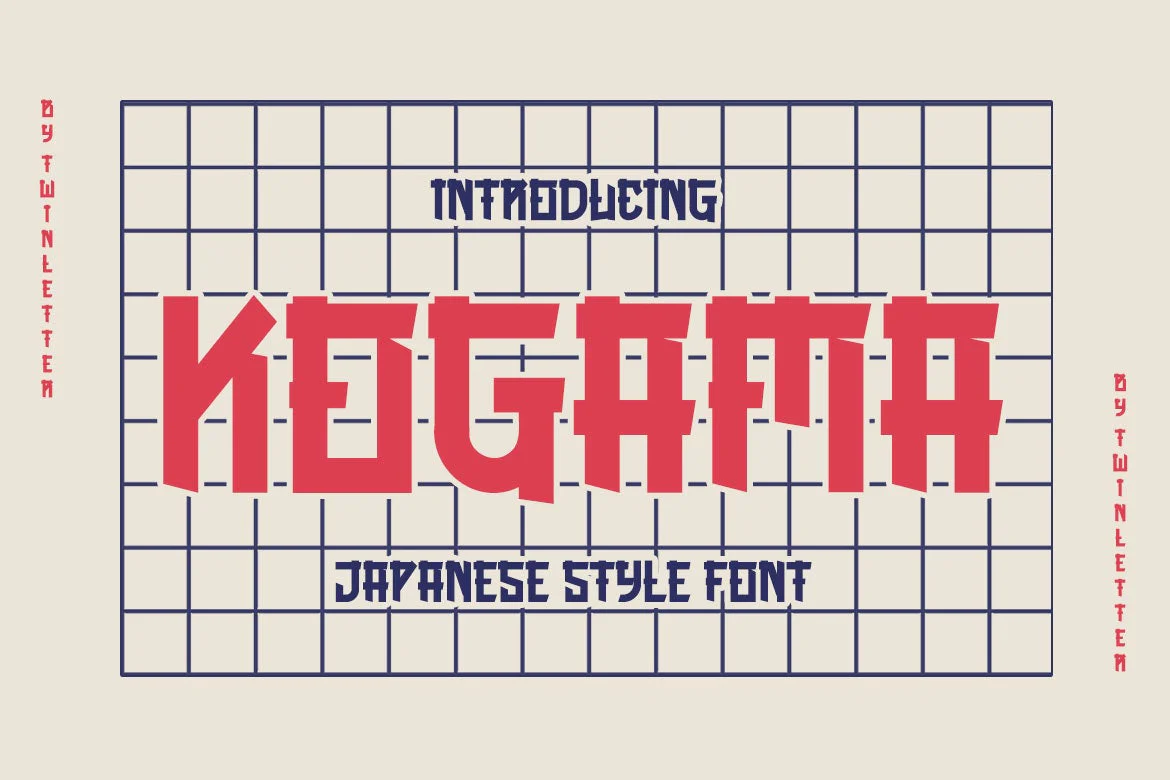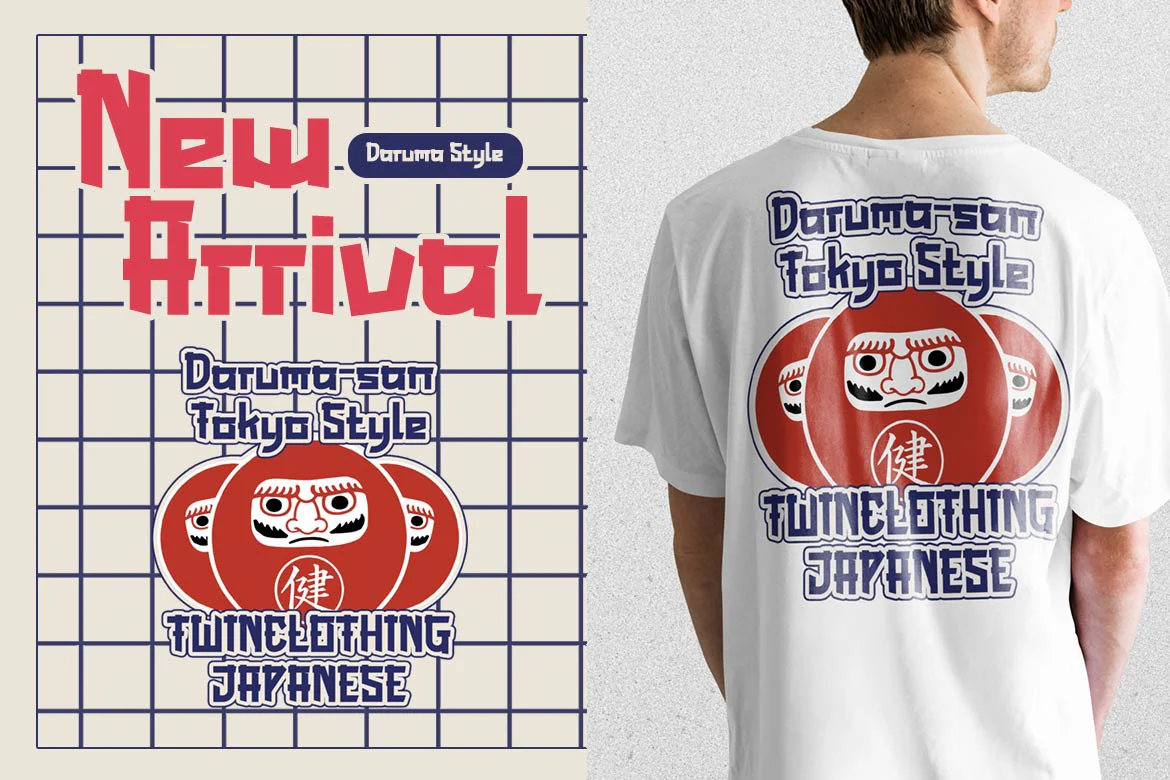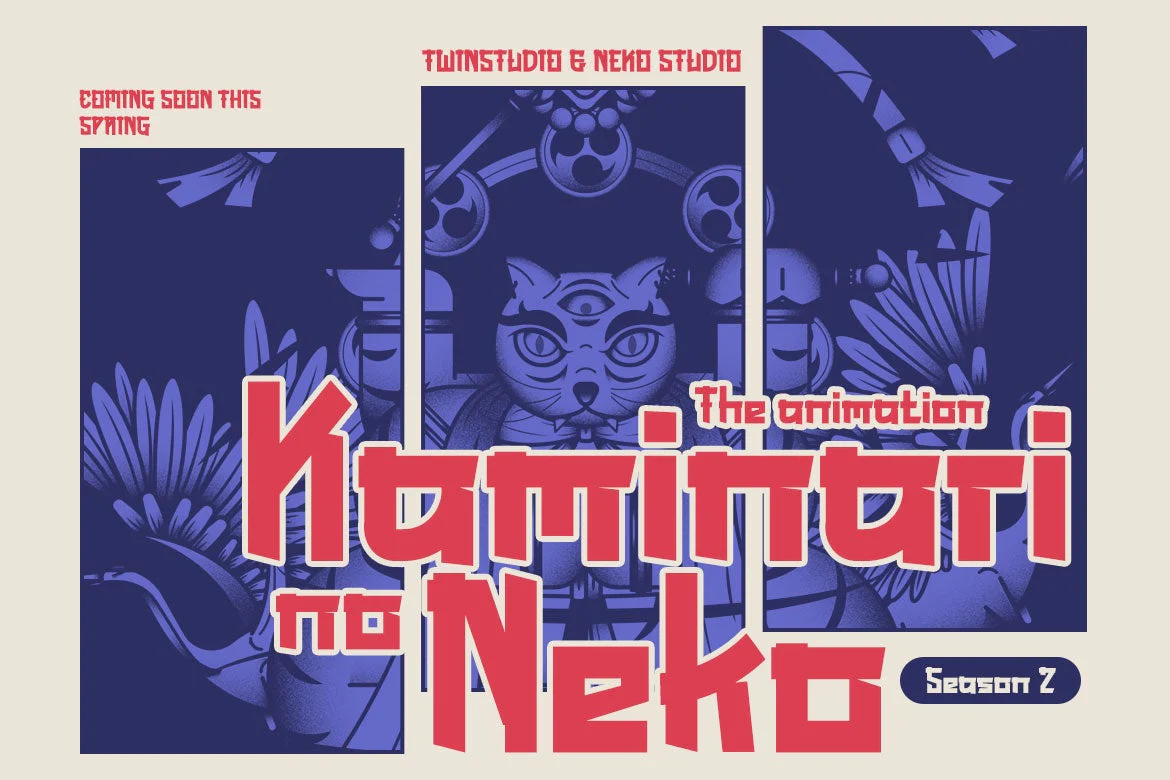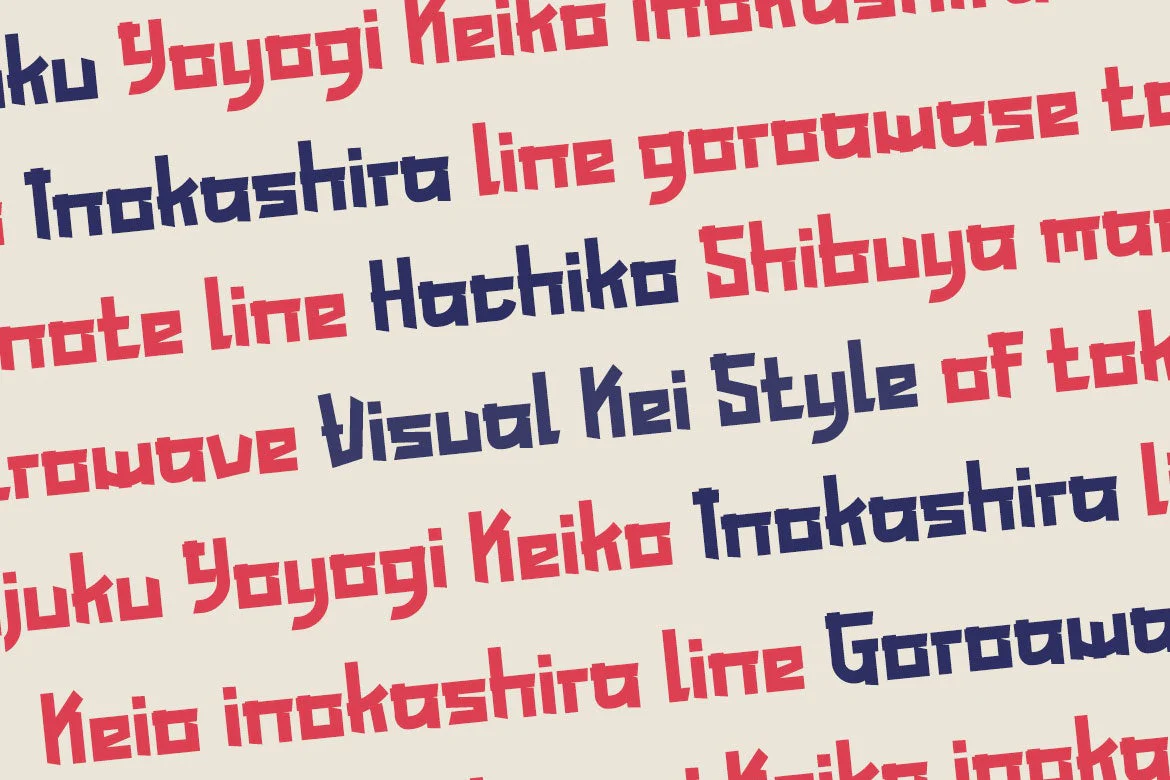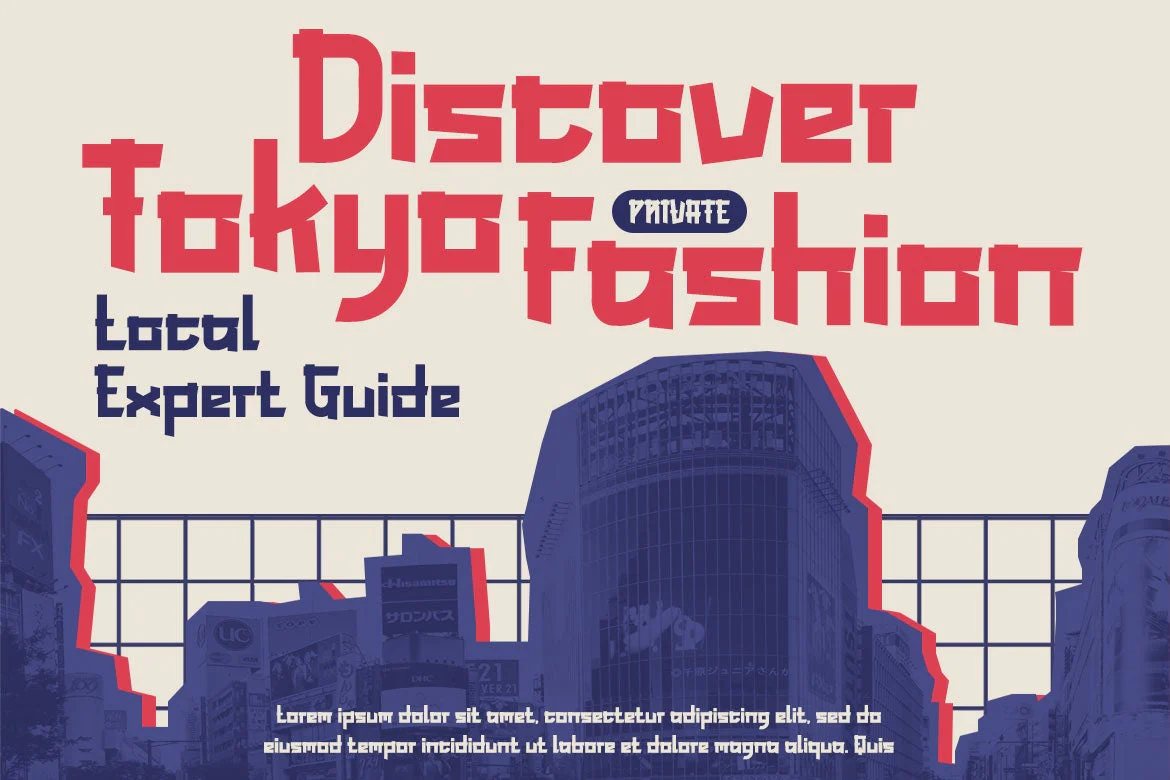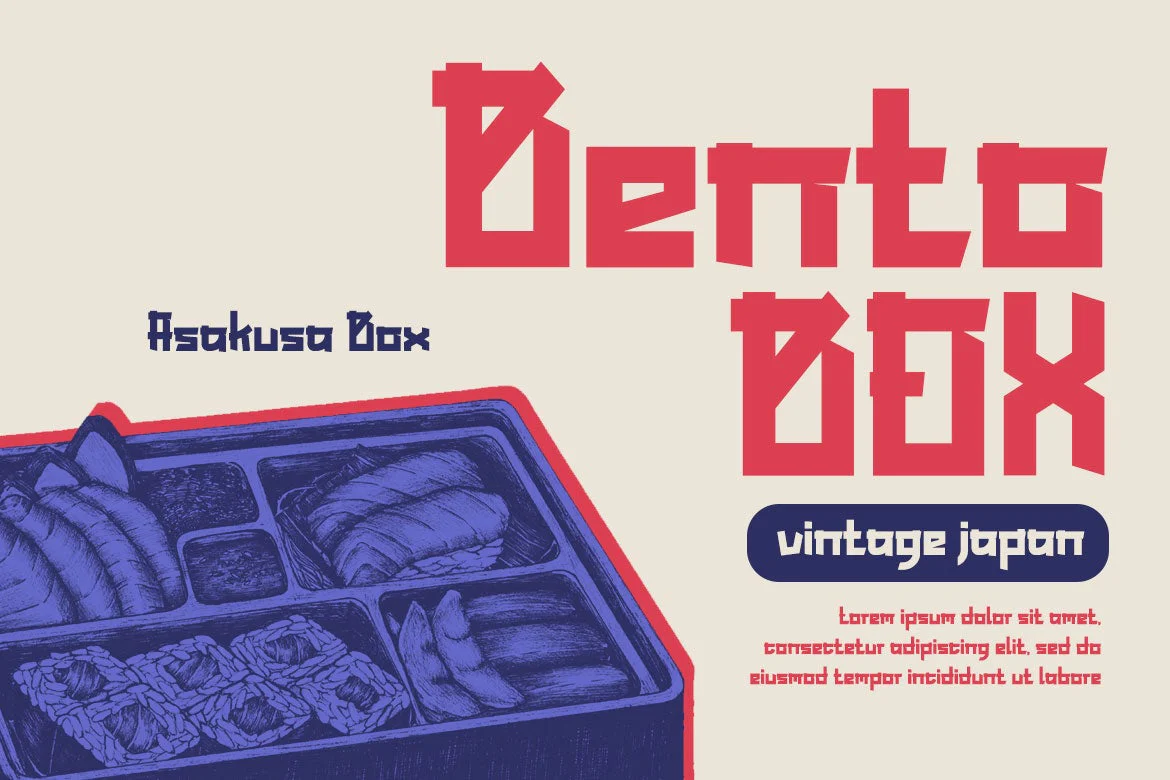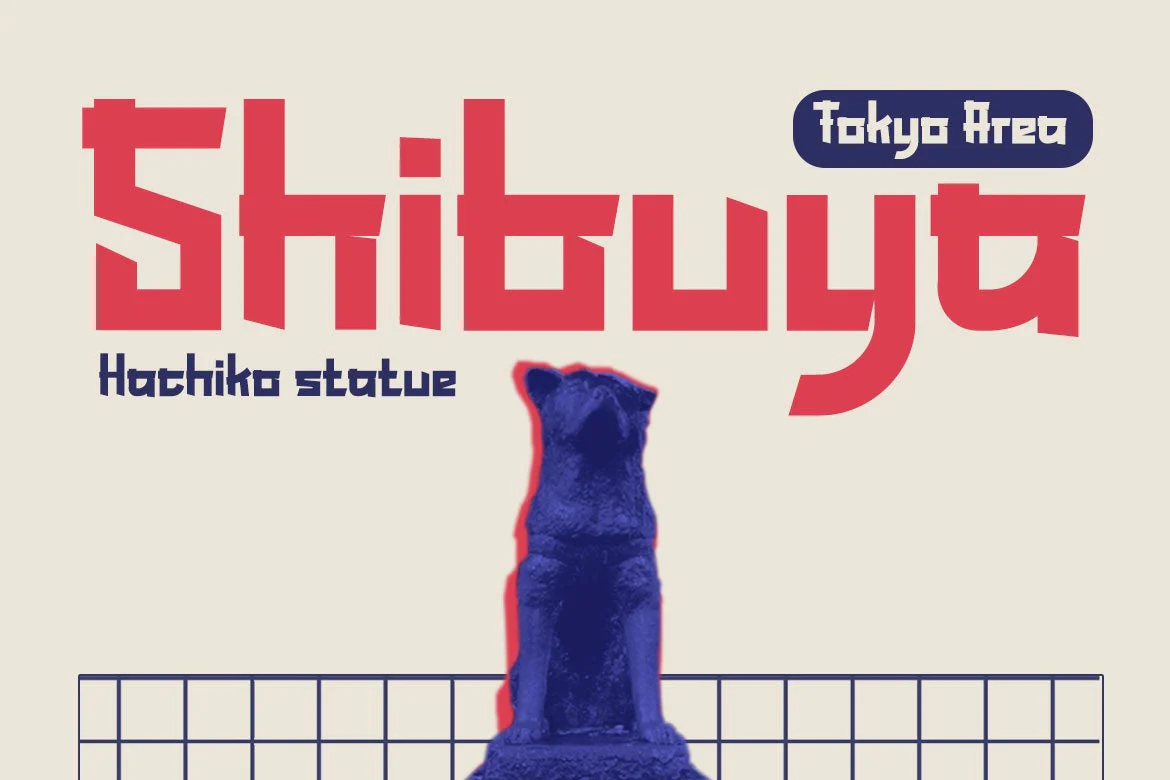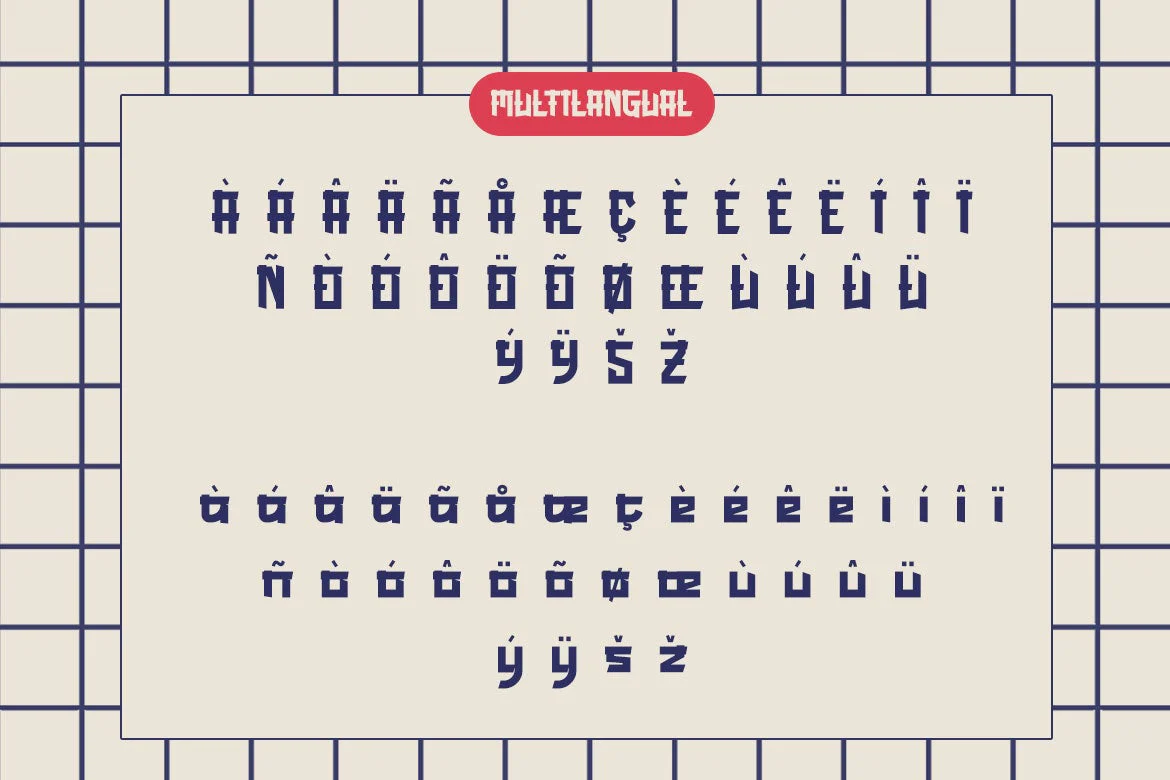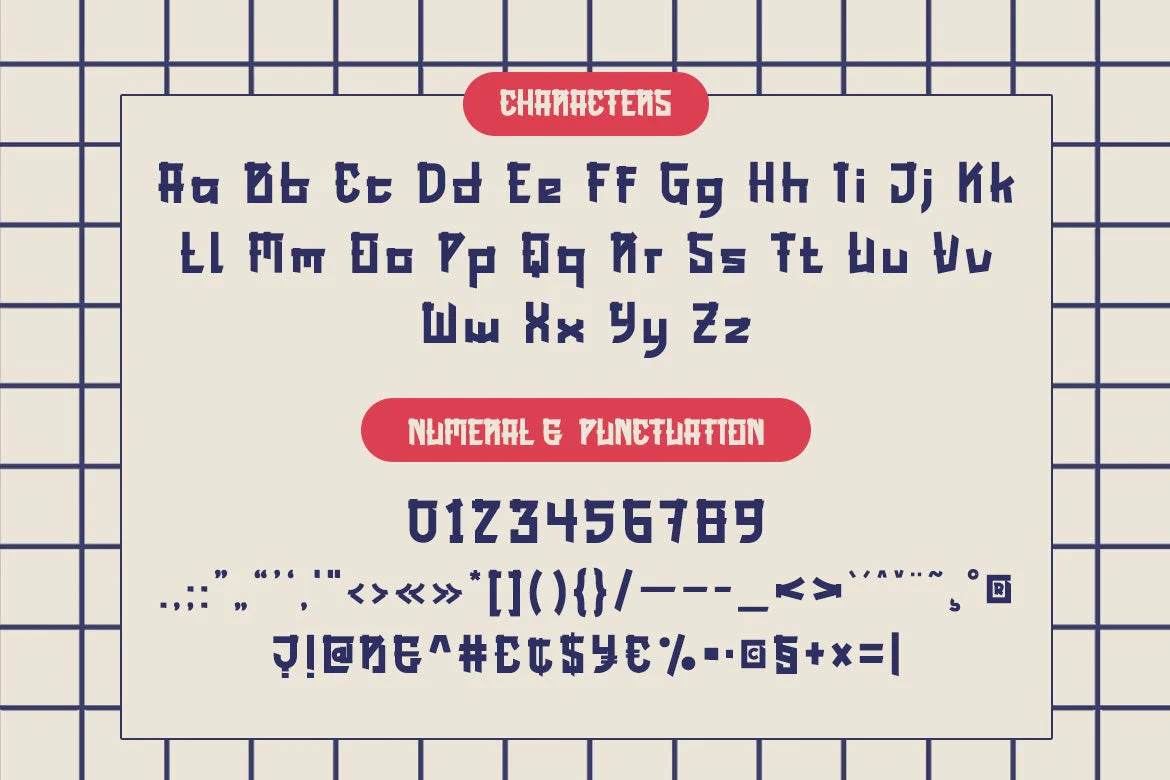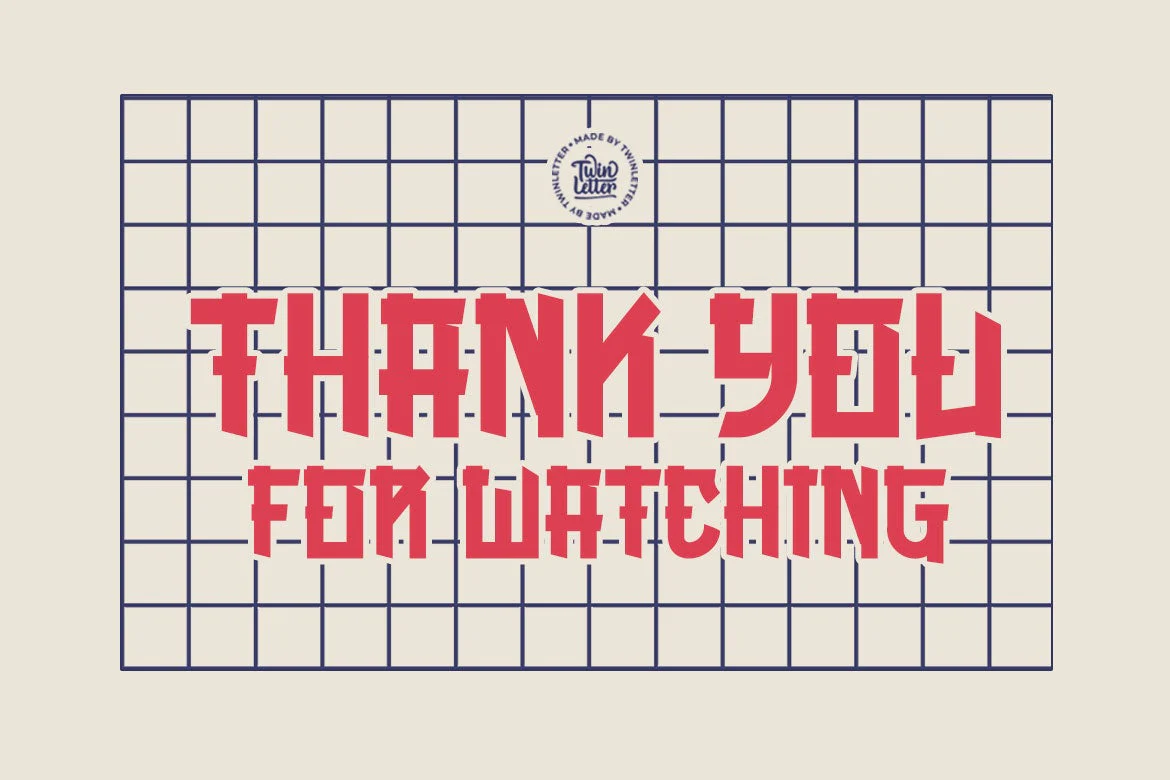
KOGAMA - Japanese style font
Introducing Kogama, our newest Japanese-style inspired font, which was created specifically to carry the Asian font concept and will make your project look beautiful and appealing.
Start utilizing this typeface to make your project stand out and be well received.
Logotypes, food banners, branding, brochure, posters, movie titles, book titles, quotes, and more may all benefit from this font.
Of course, using this font in your various design projects will make them excellent and outstanding; many viewers are drawn to the striking and unusual graphic display.
Start utilizing this typeface in your projects to make them stand out.